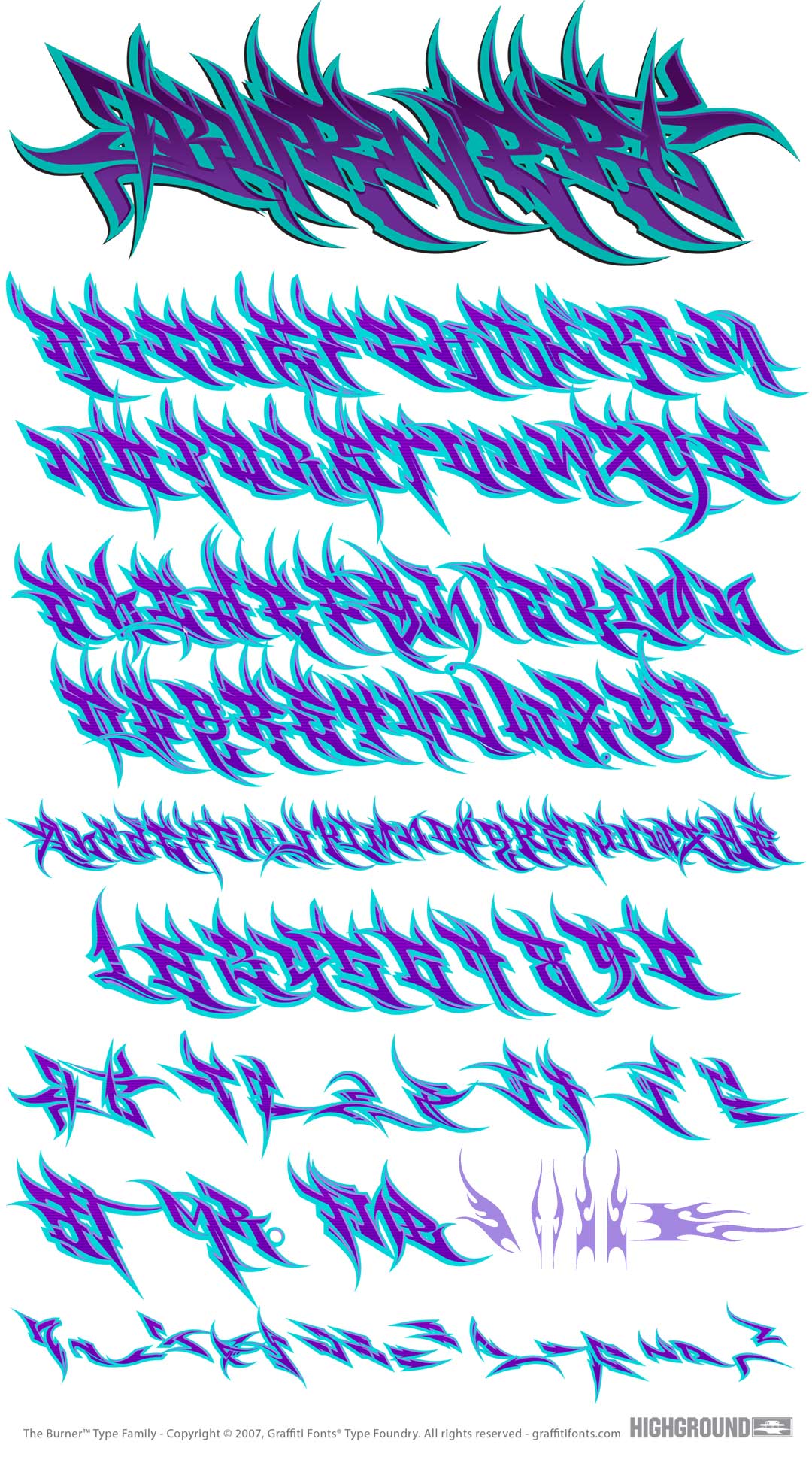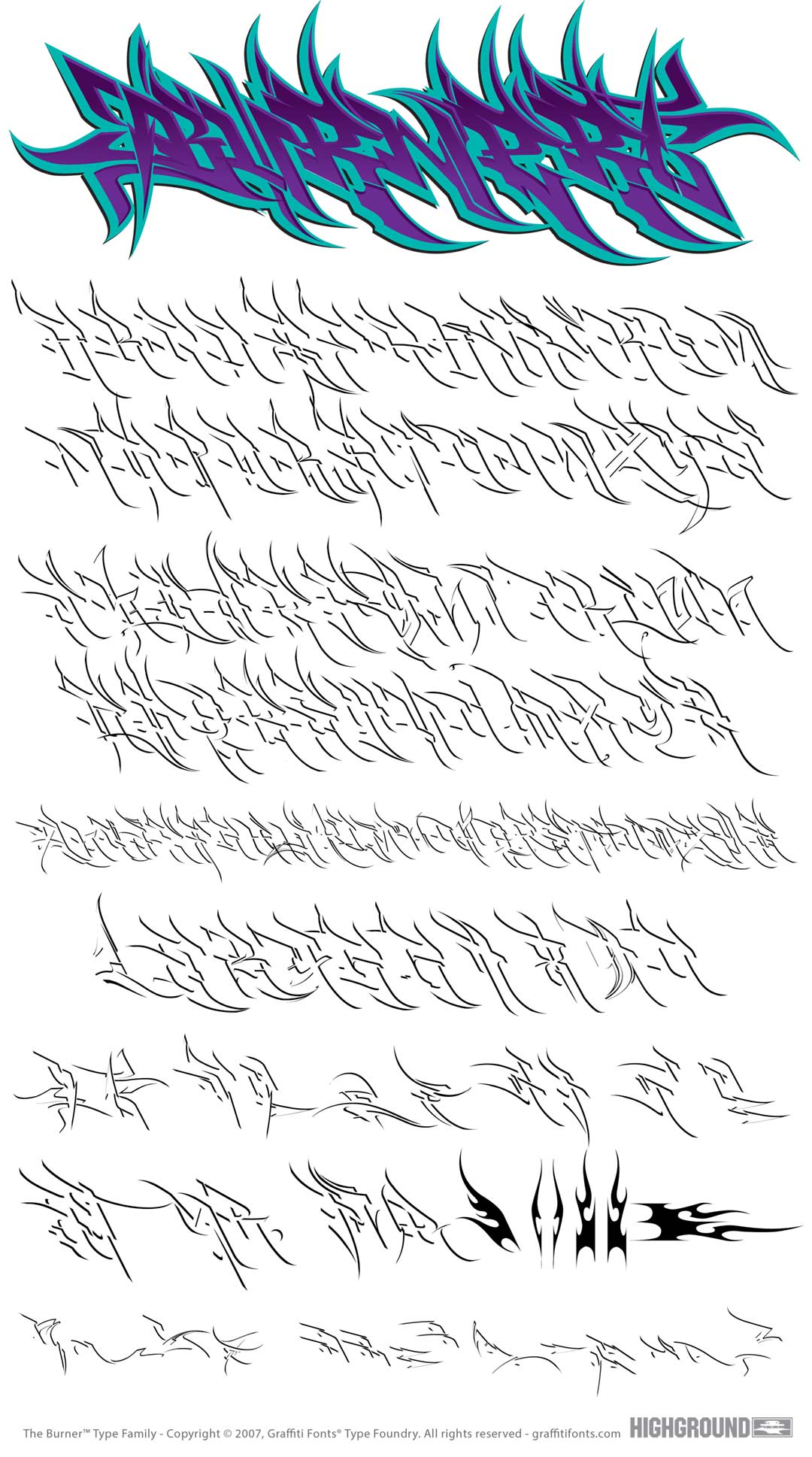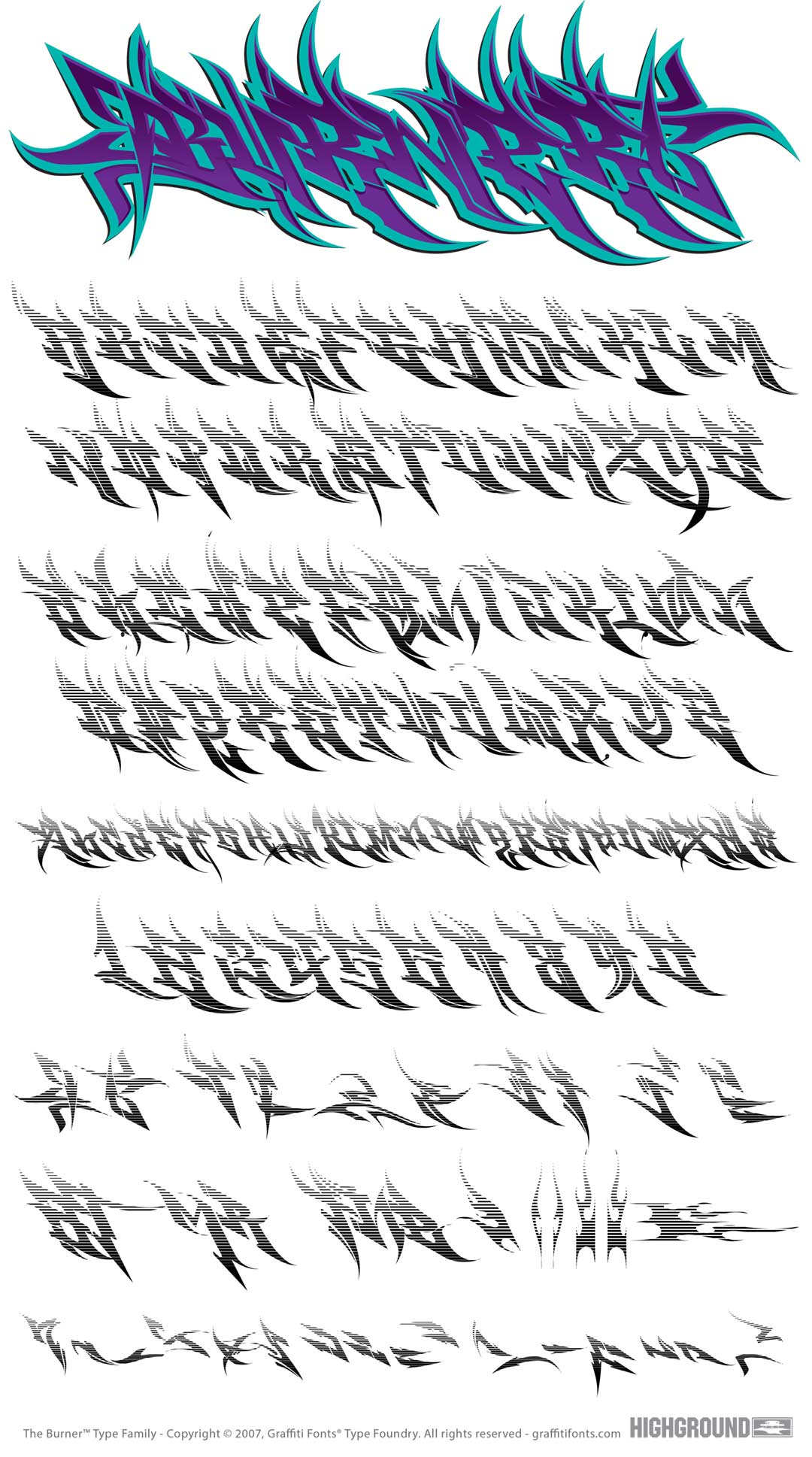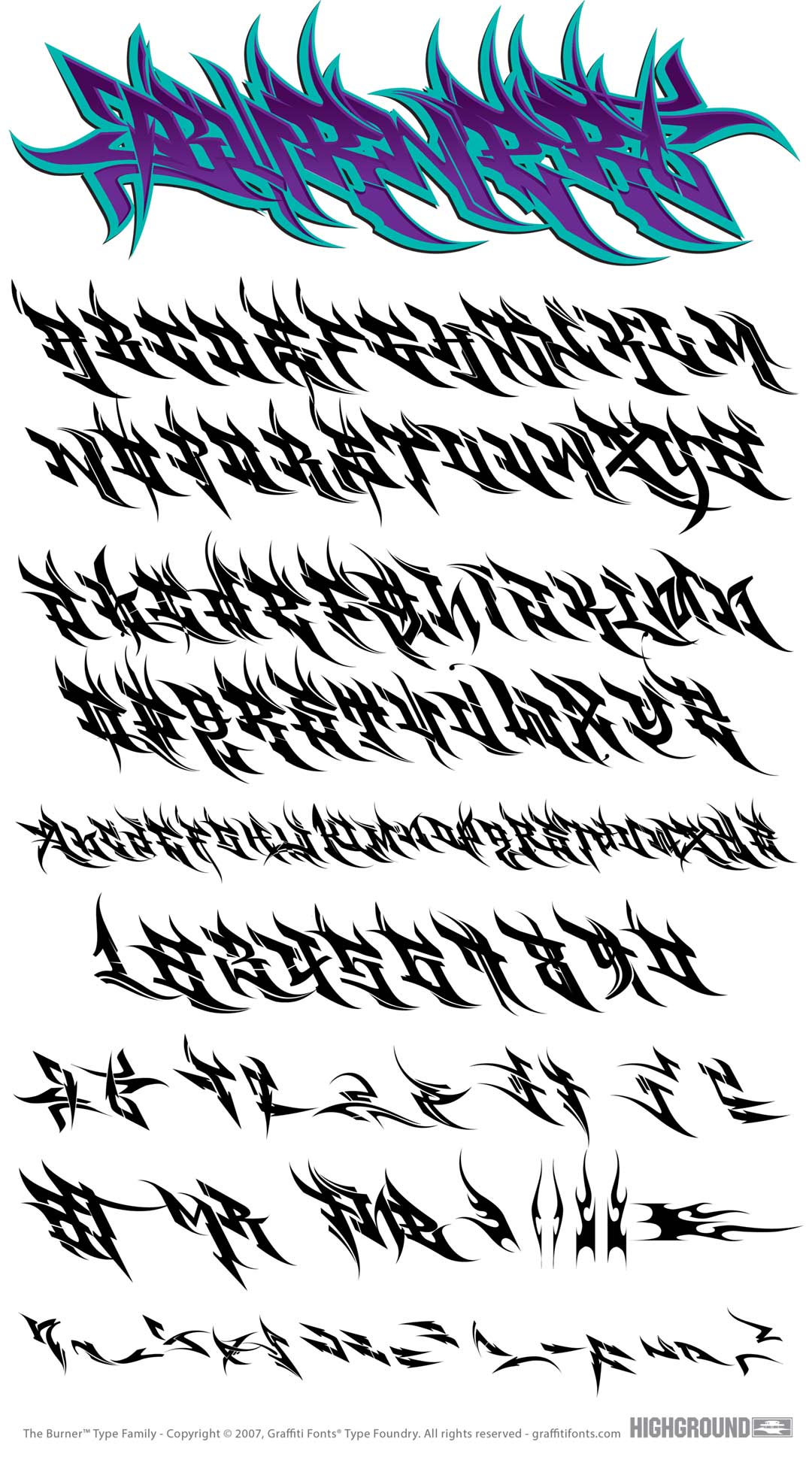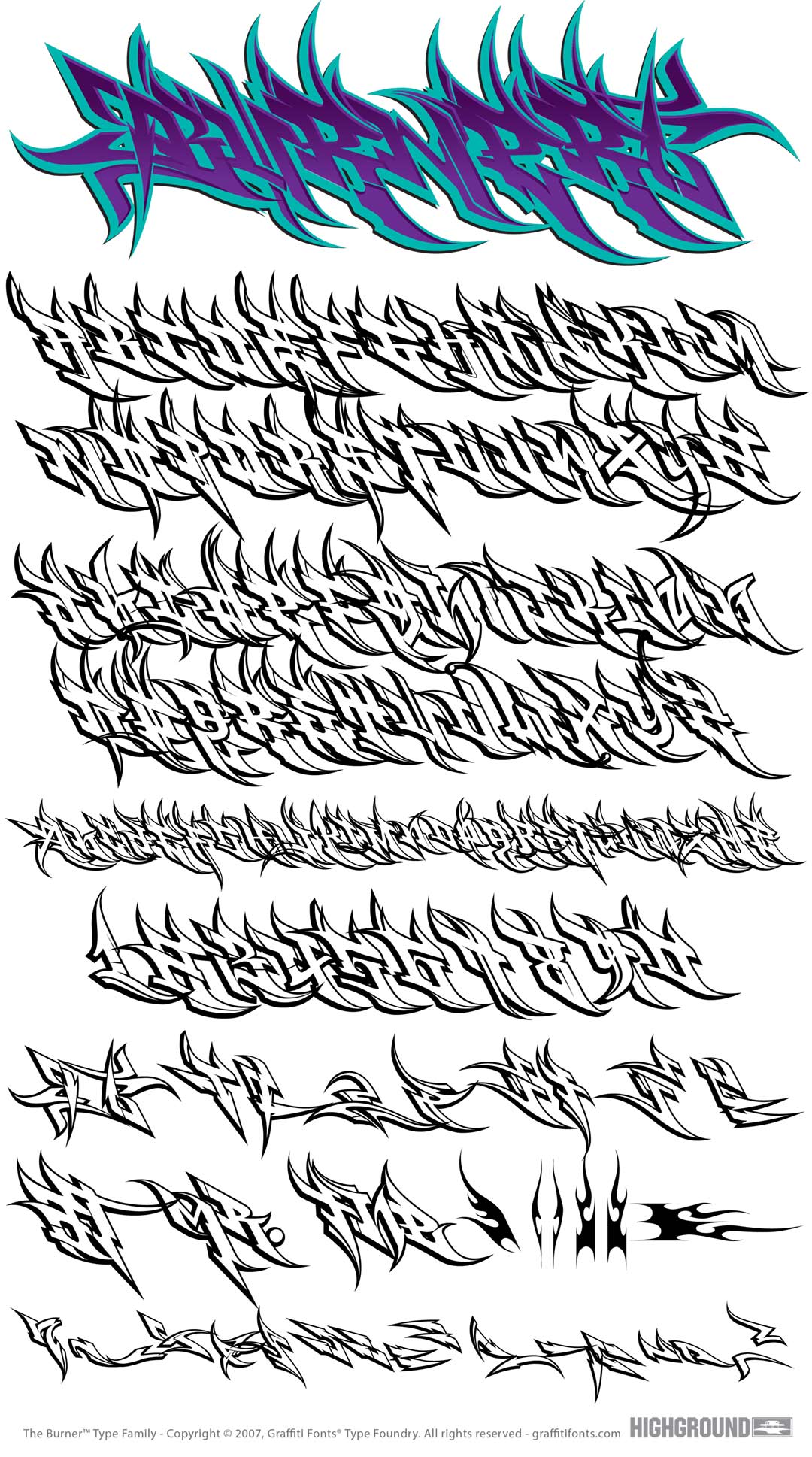
The Burner font family is a layered type system of 155 wildstyle graffiti letters, numbers, symbols & flourishes in each of 5 styles. Glyphs from the fill, outline, fade & detail styles layer & combine in endless combinations to create complex burners that are consistent & legible. Each style contains 3 full alphabets plus initial (beginning) and terminal (ending) glyphs & tons of other embellishments for creating authentic, wildstyle, graffiti pieces with an aggressive & modern look. For even faster access to this family's layering features, the newly developed "Burner Color" style makes use of the new, full-color, vector font capabilities of OpenType & combines all 4 styles layered into a single, color typeface that can be used as-is or broken apart & recolored however you see fit. The Burner graffiti font family was first developed in 2007. It was first widely released as part of the 2009 edition of Graffiti Fonts 4.0 (Codename: BURN) and was only the third wildstyle typeface ever published. Today, the family continues to undergo ongoing development & expansion.